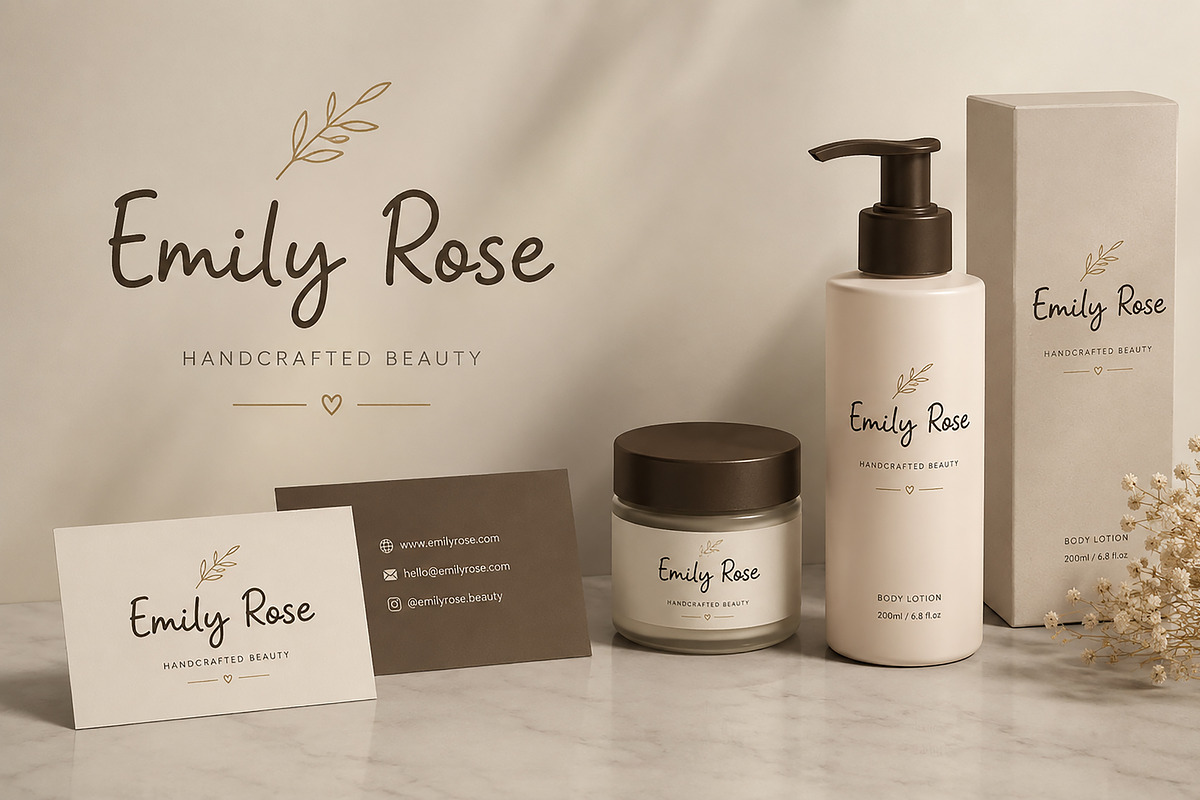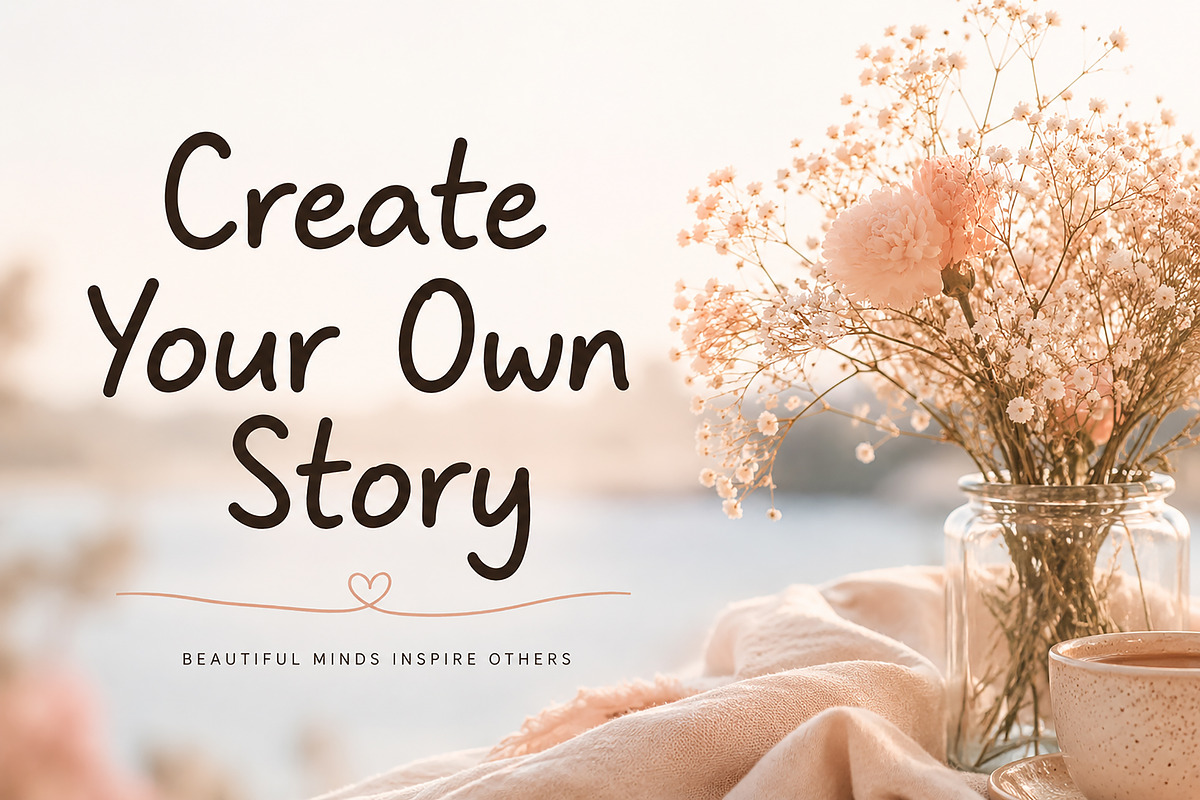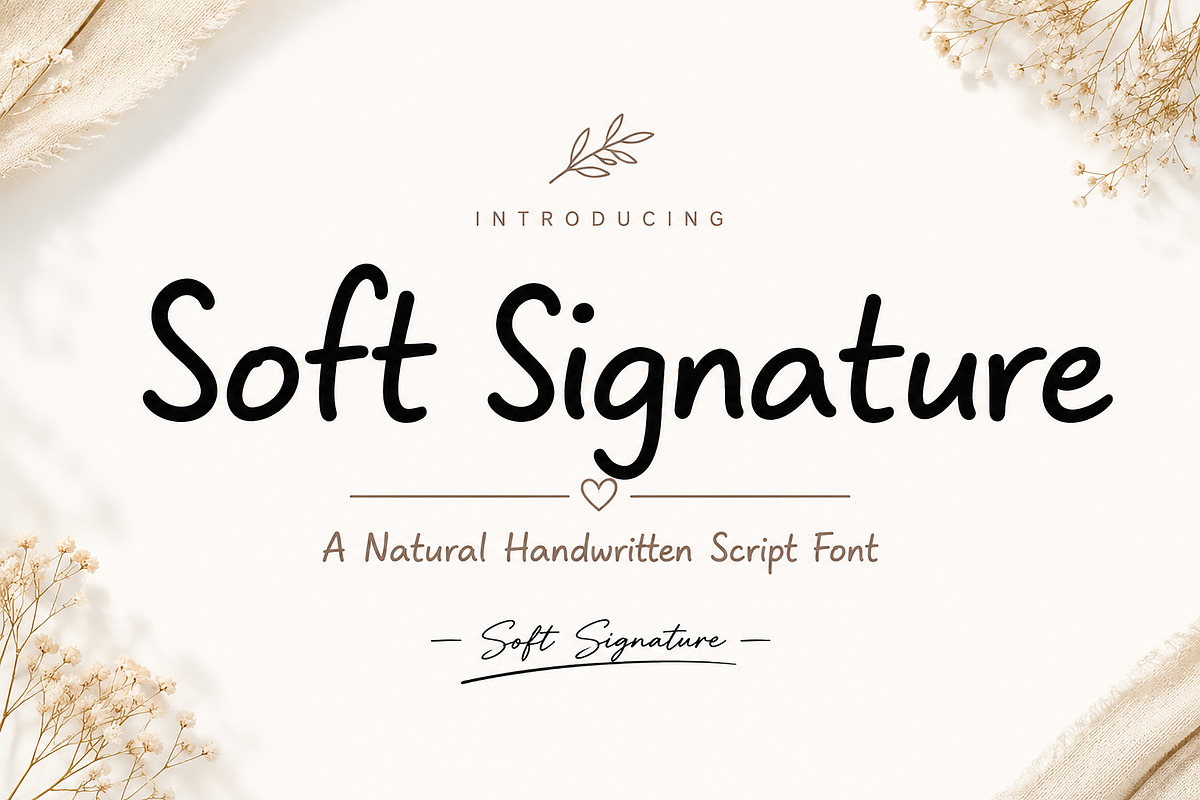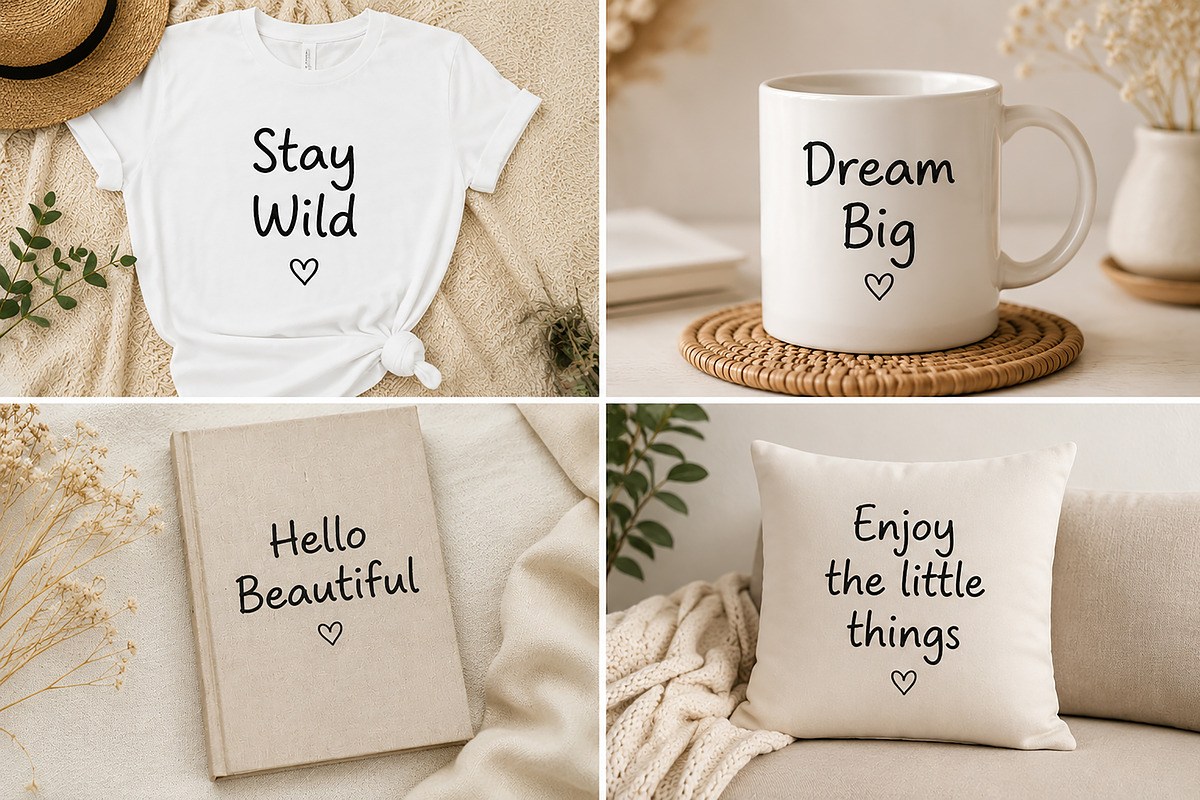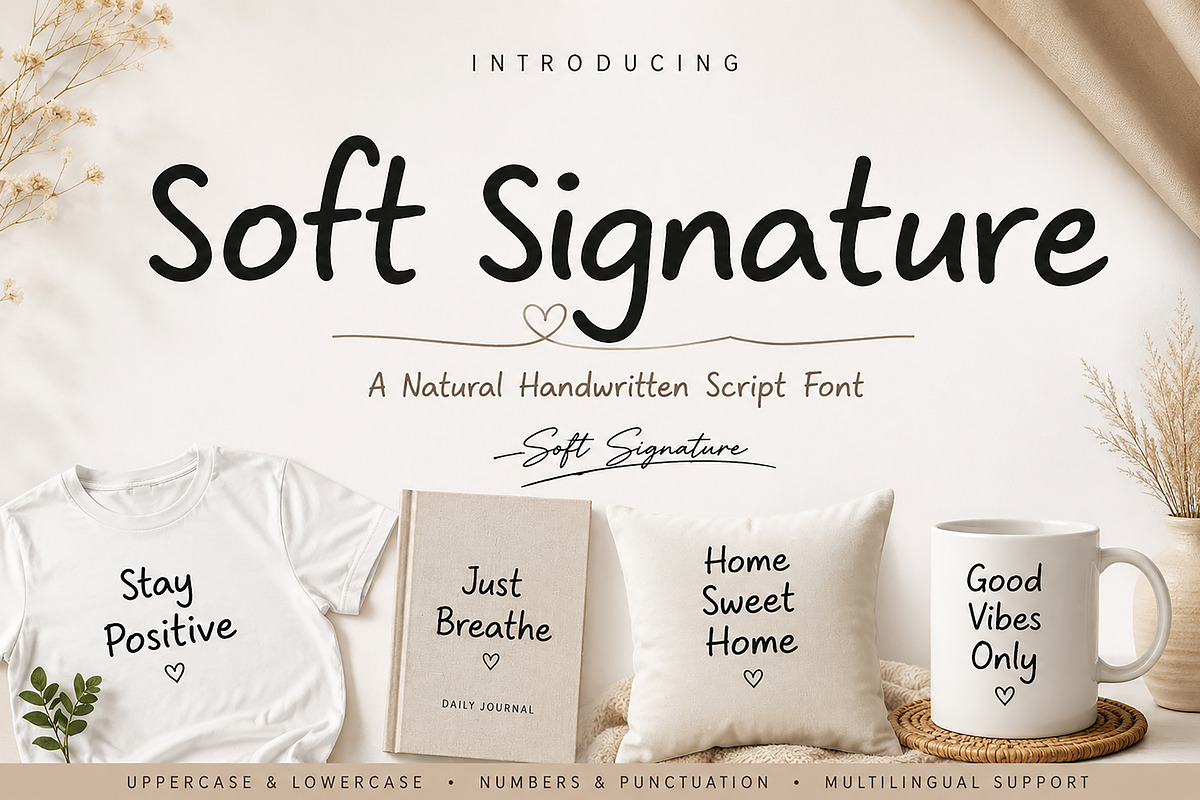
Soft Signature
Soft Signature Font
Soft Signature is a charming handwritten script font designed to bring warmth, personality, and authenticity to your creative projects. With its smooth curves, playful letterforms, and natural handwritten feel, this font is perfect for creating elegant yet friendly designs that stand out effortlessly.
Whether you're designing branding materials, social media content, wedding invitations, product packaging, logos, quotes, t-shirts, book covers, or lifestyle graphics, Soft Signature adds a personal touch that feels genuine and approachable.
Its clean handwritten style makes it highly versatile for both modern and creative projects, allowing your designs to feel professional while maintaining a handcrafted aesthetic.
Branding & Identity
Business Cards
Beauty & Cosmetic Brands
Wedding Invitations
Social Media Posts
Instagram Graphics
Quotes & Typography Art
T-Shirt Designs
Greeting Cards
Lifestyle Photography Overlays
Craft & DIY Projects
Blog Headers
Uppercase & Lowercase Characters
Smooth Handwritten Style
Easy to Read
Bring a soft, natural, and handcrafted touch to your designs with Soft Signature — the perfect handwritten font for modern creators, designers, and entrepreneurs.
Soft Signature is a natural handwritten script font featuring smooth curves, playful character shapes, and a friendly handwritten feel. Perfect for logos, branding, social media, invitations, packaging, t-shirts, quotes, and creative design projects.